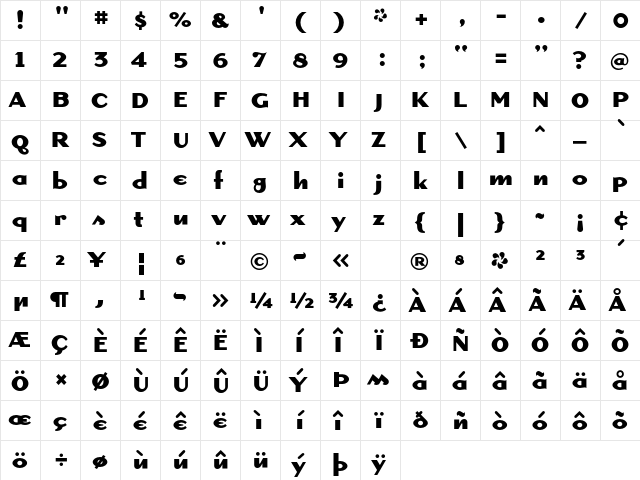
DogmaBold Regular
Design Context for DogmaBold Typeface
DogmaBold is a composed and adaptable typeface that performs quietly and consistently across a wide range of design contexts. Its bold stroke weight gives it real presence on the page.